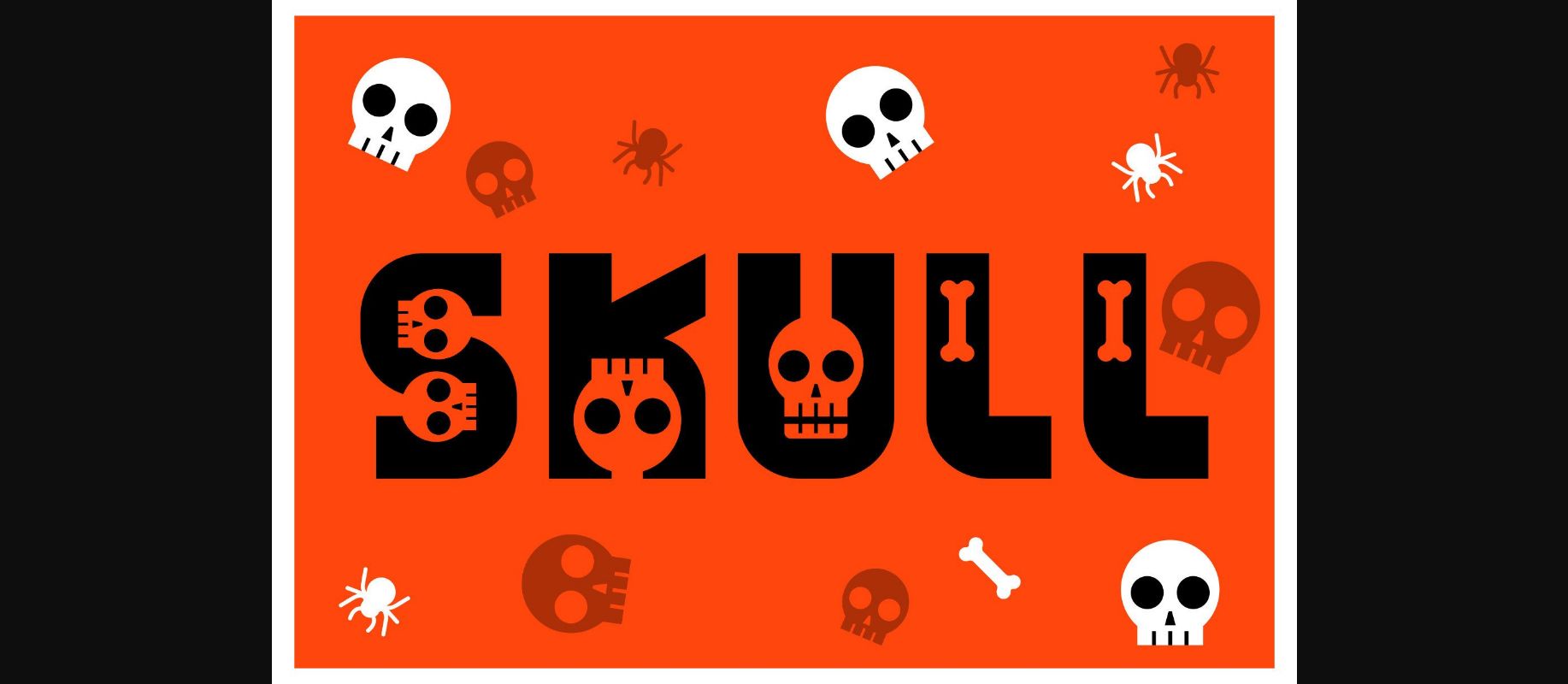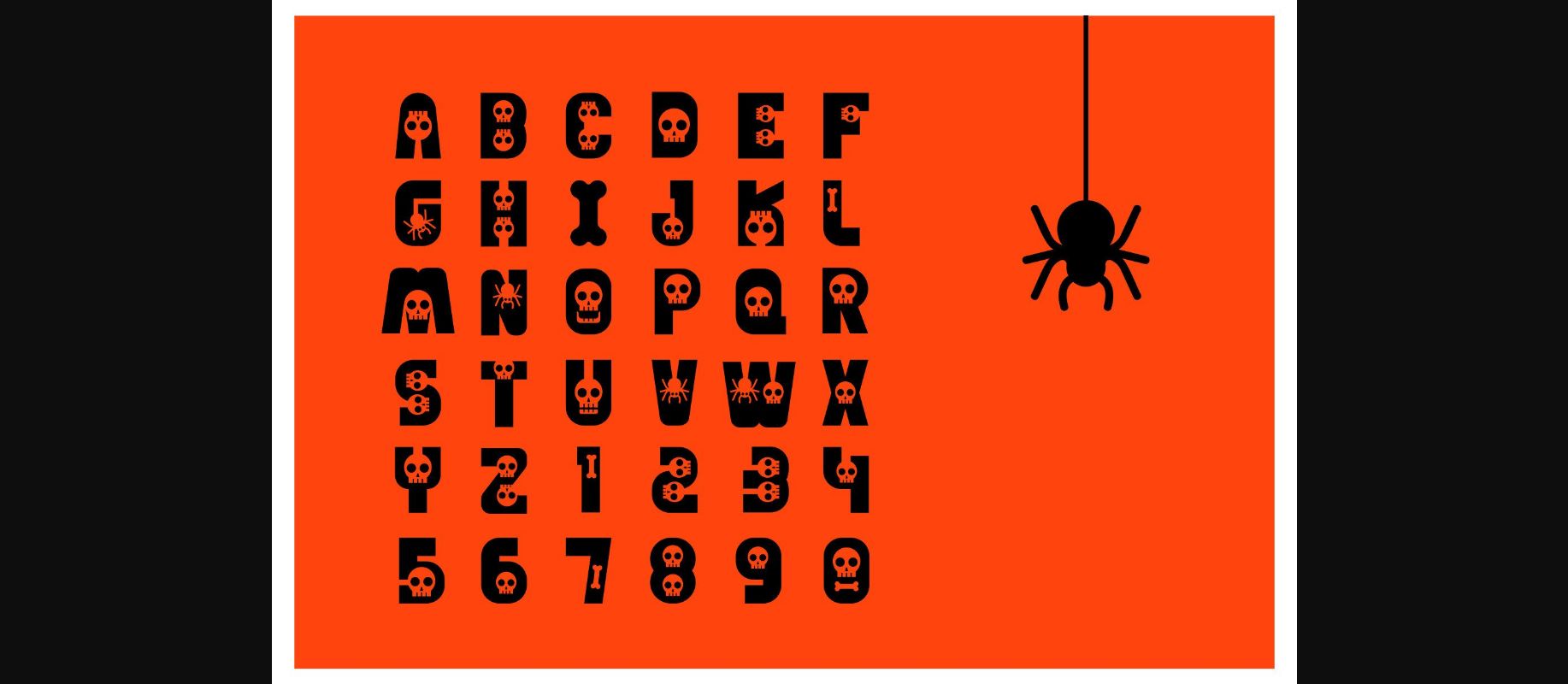
Skull is an incredibly cool and original decorative font. Whimsical and a little bit spooky, this font is perfect for Halloween or horror-themed projects.